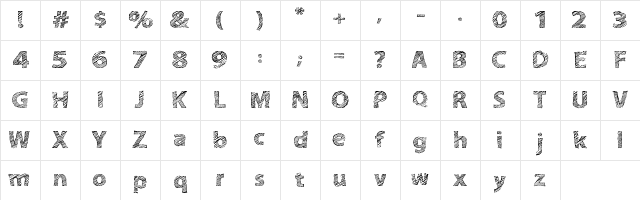
A bit sketchy Regular Free Font
A bit sketchy Regular
Design Context for A bit sketchy
A bit sketchy is a composed and adaptable typeface that performs quietly and consistently across a wide range of design contexts.
Pro Tip: Use A bit sketchy in both headline and body roles to test its range before committing to a single application.